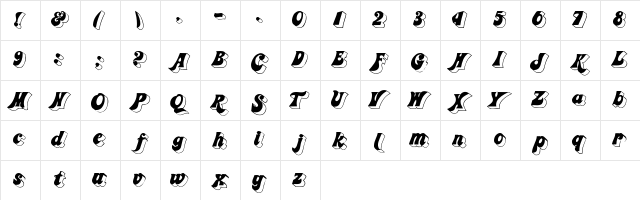
Lochiere Bold Italic Regular
Design Context for Lochiere Bold Italic Typeface
Lochiere Bold Italic is a composed and adaptable typeface that performs quietly and consistently across a wide range of design contexts. The dynamic lean of this cut emphasises speed and emphasis in any layout. The heavy weight commands attention and anchors typographic hierarchies.
Pro Tip: Try Lochiere Bold Italic for annotation and caption copy alongside an upright companion — the contrast in angle creates a dynamic but ordered typographic system.